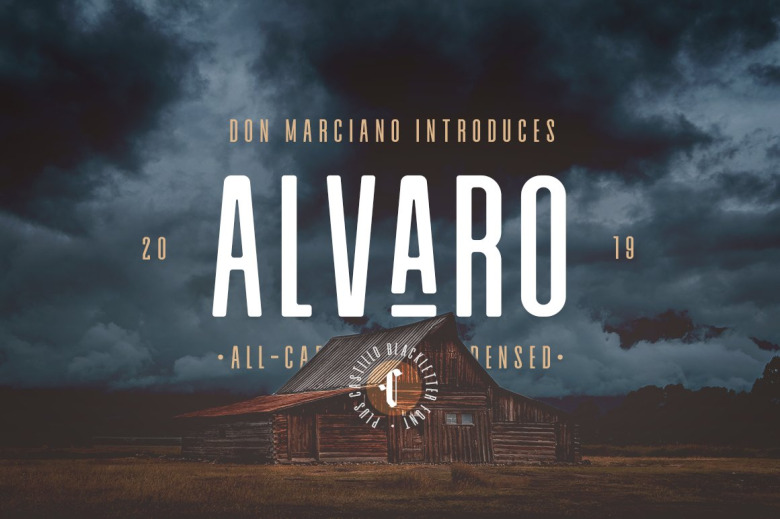
Alvaro Font
Alvaro is a clean condensed style font, design as part of a growing font family for a personal project that needed a simpler look, here is the first iteration of the first weight out of the wooden oven, I want these fonts to be cooked slowly, to perfection; Alvaro comes paired with Castillo (a blackletter font) to complement the style and at the same time, show the design possibilities of this duo.
Alvaro Condensed Font Duo